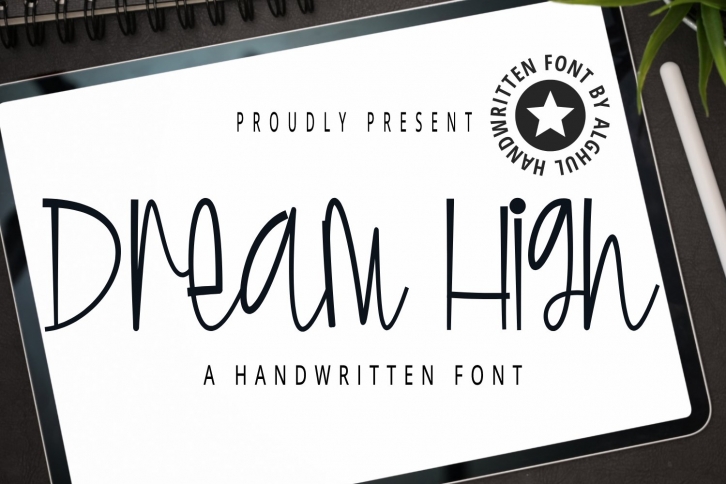
Dream High is a great font that was designed by Lettering Studio. Imagine the amount of combinations you can create using this font! The archive is 15.5 MB and it was released on April 5, 2022. Dream High looks beautiful on wedding invitations, greeting cards, logos, posters, labels, t-shirt designs, logos, business cards and is perfect for use in ink or watercolor works, fashion, magazines, packaging and food menus, children's books and more!